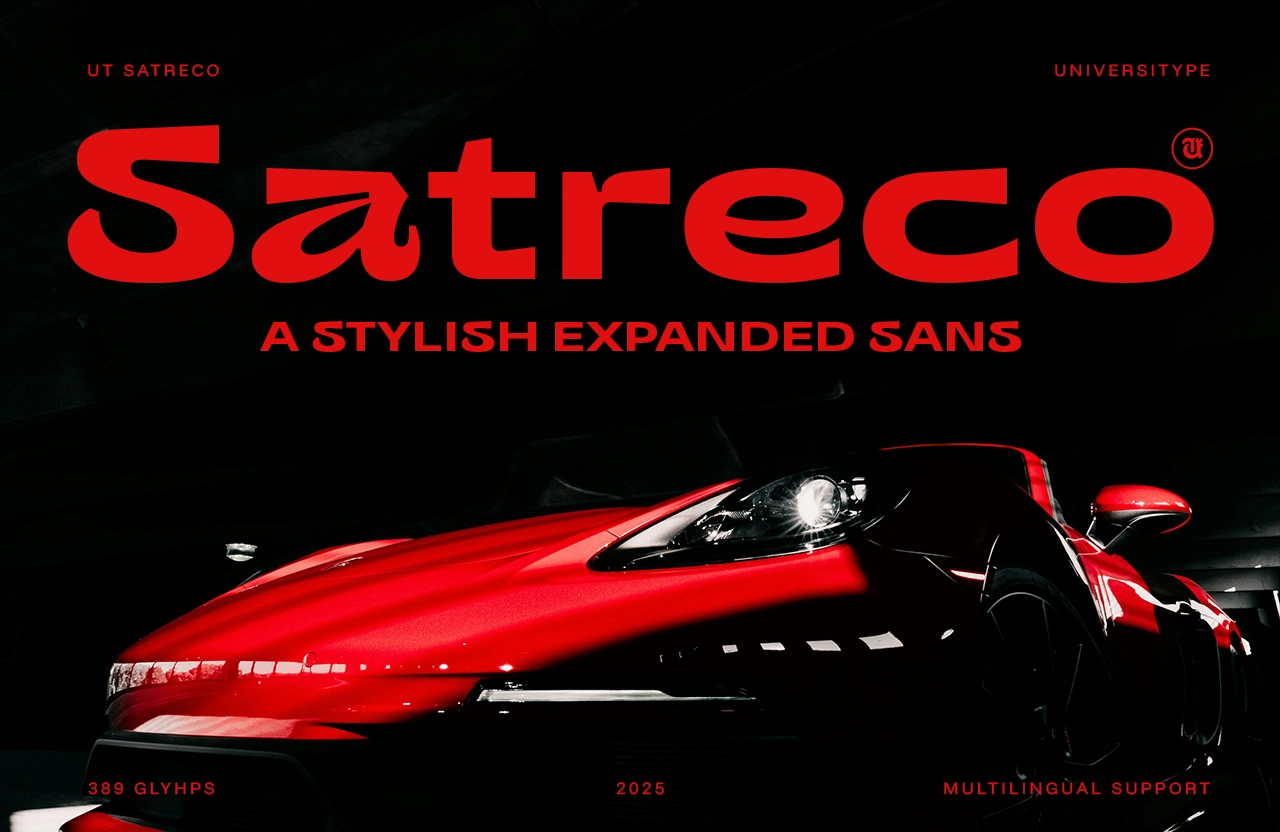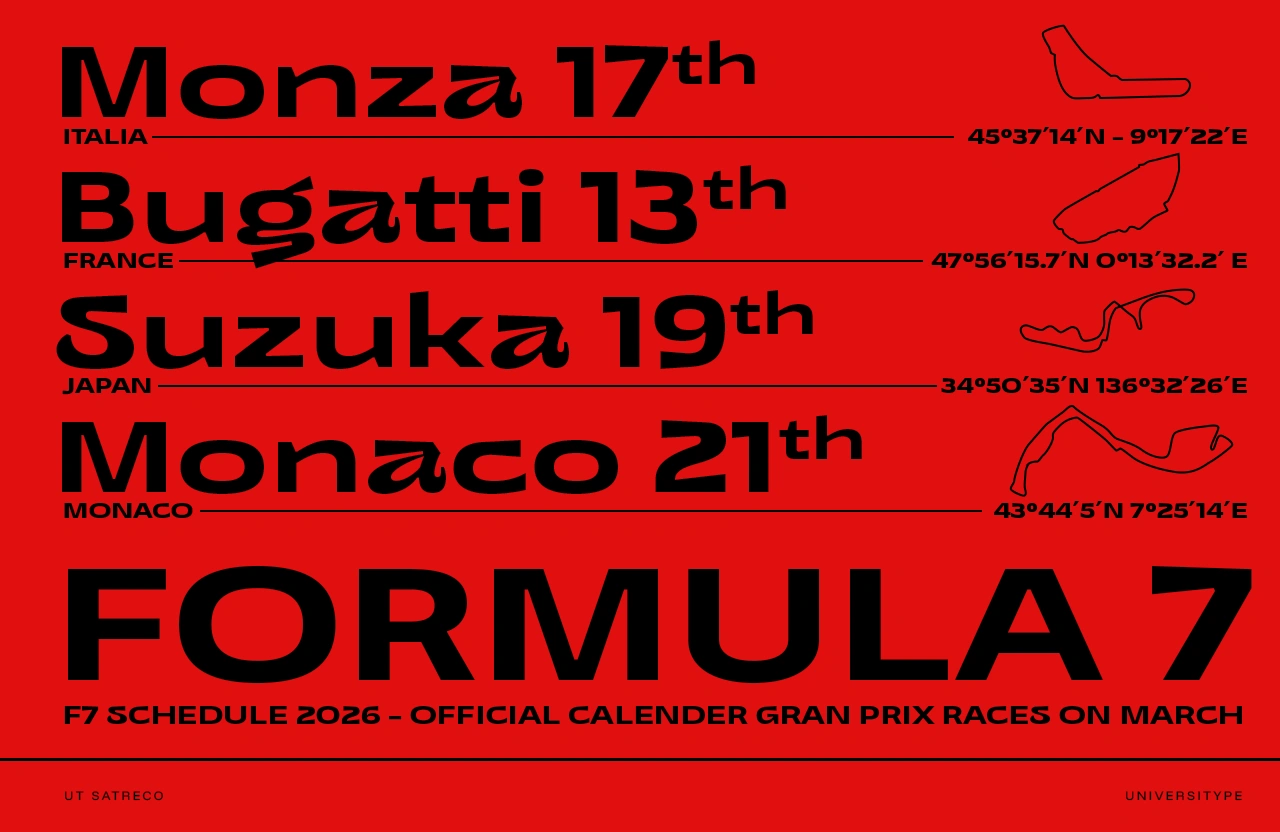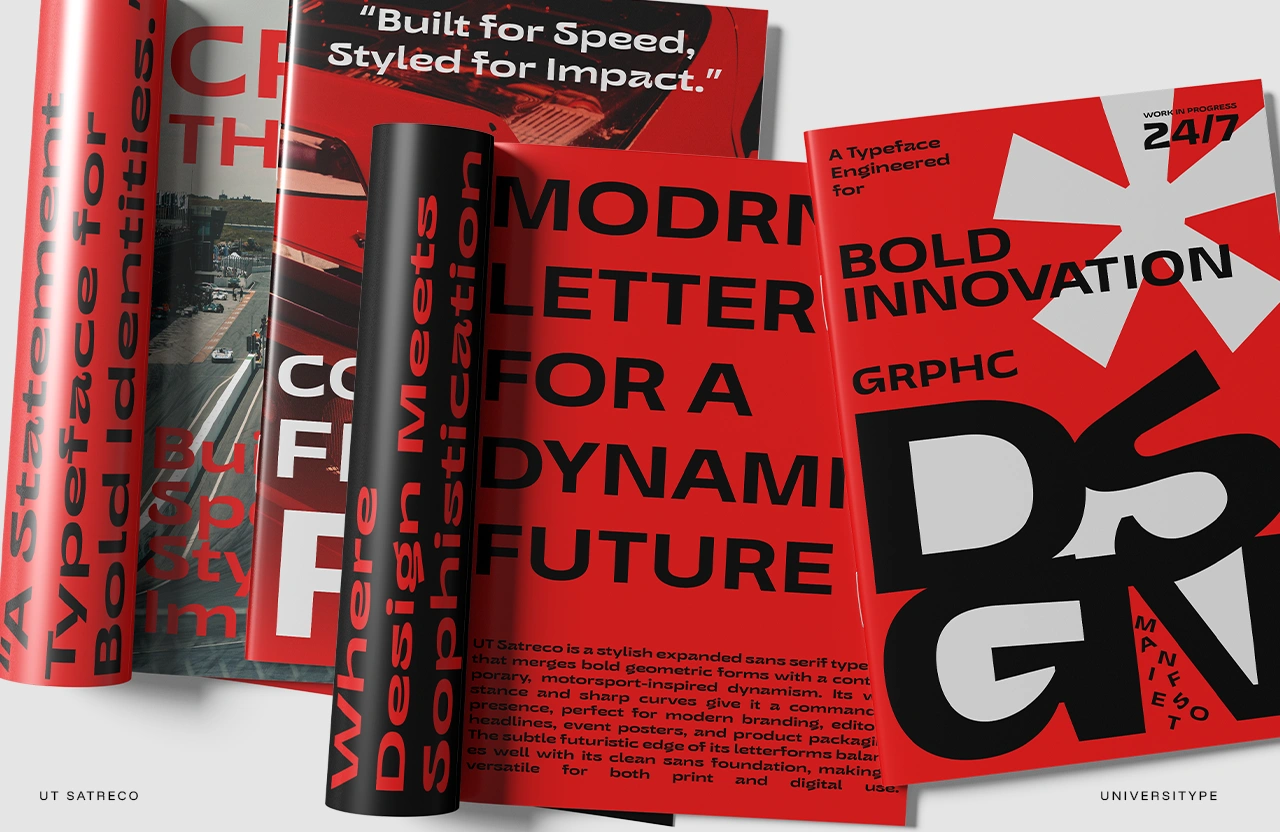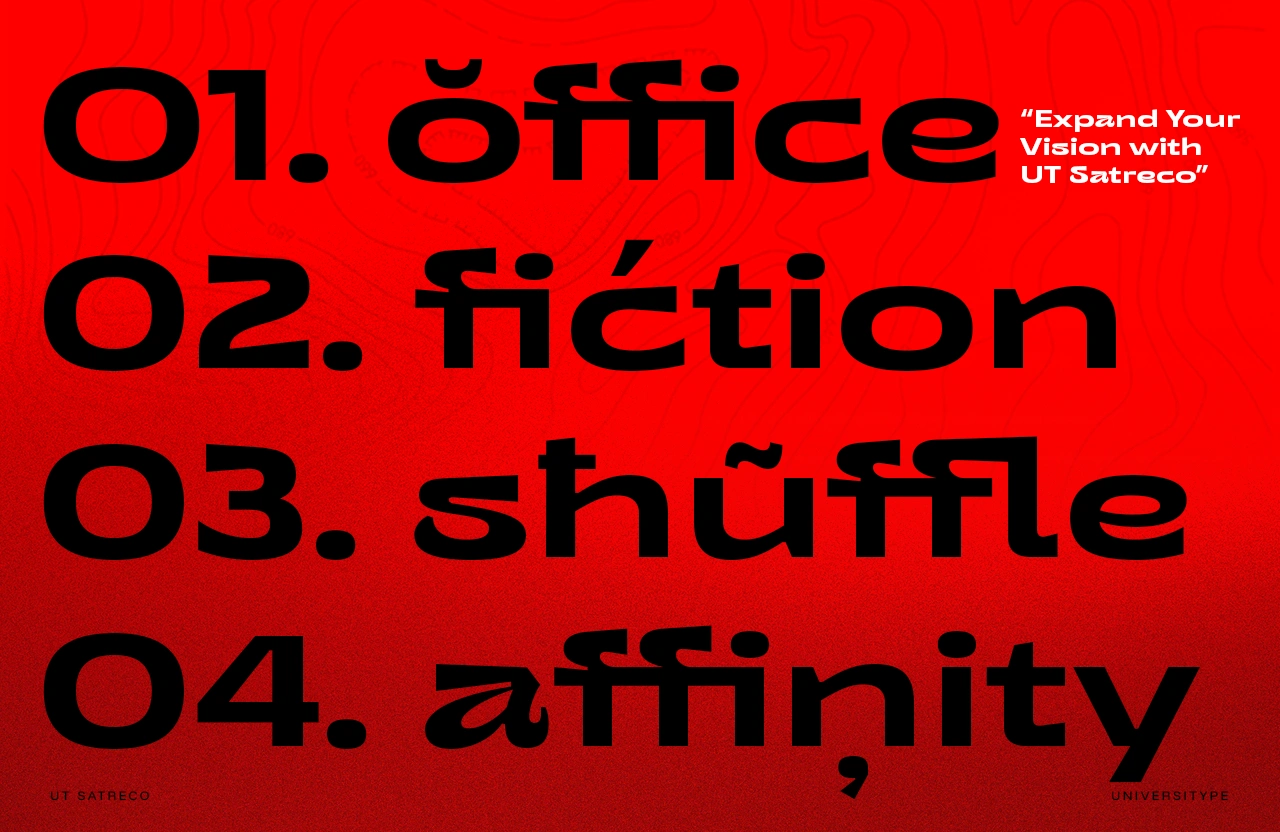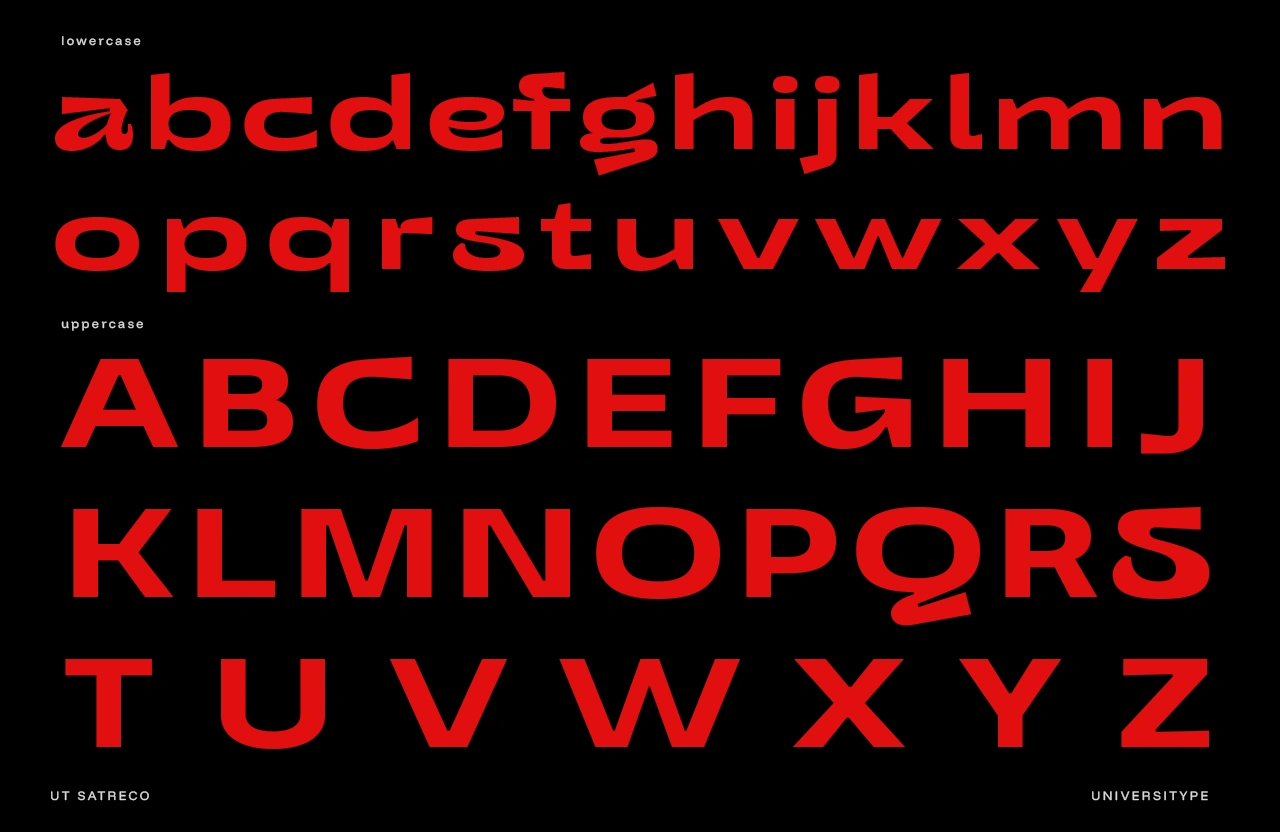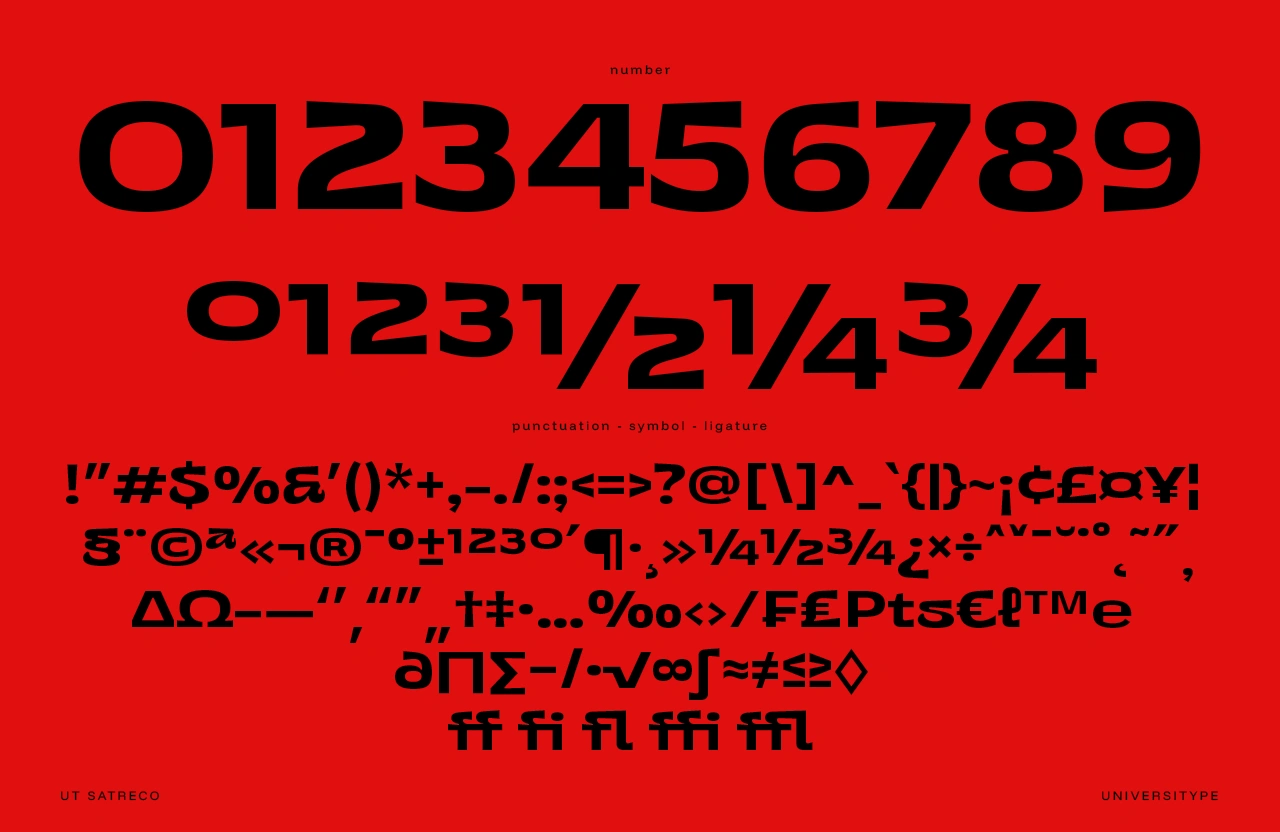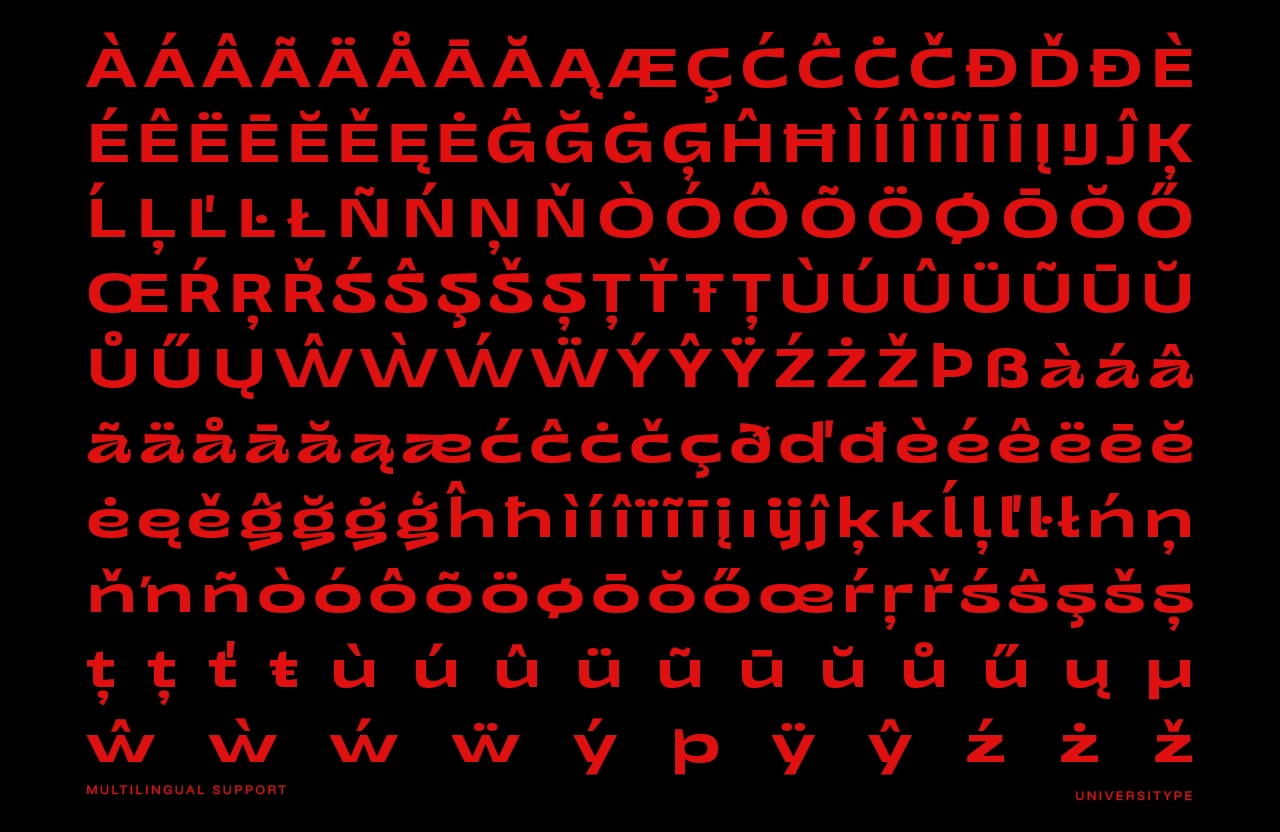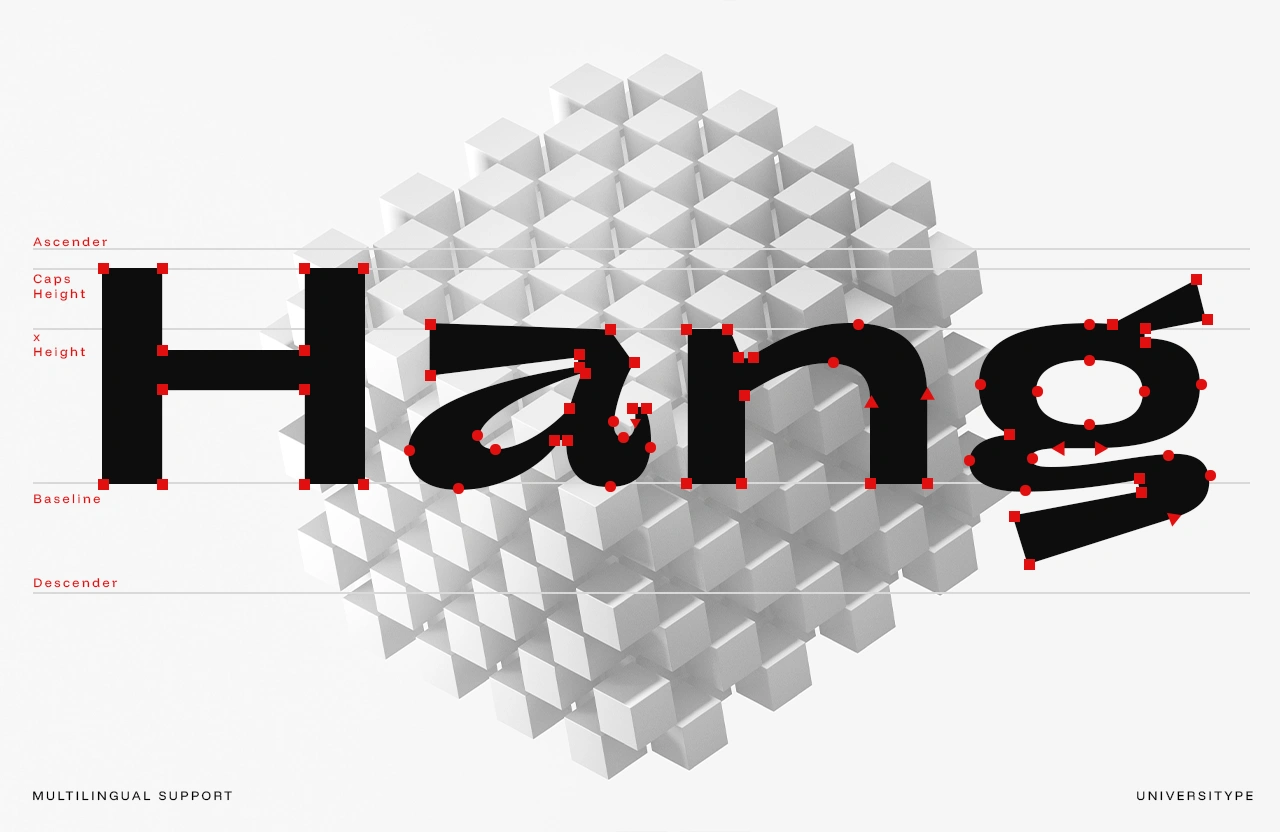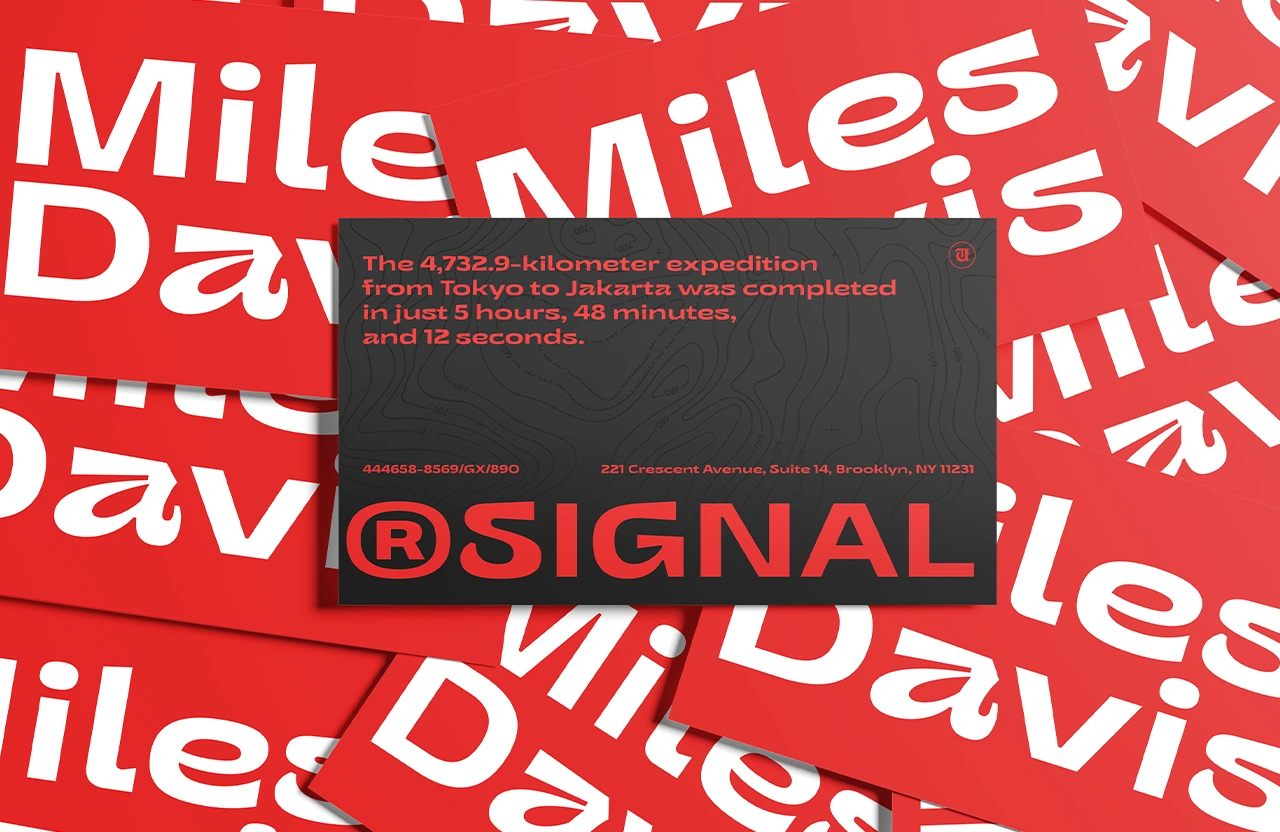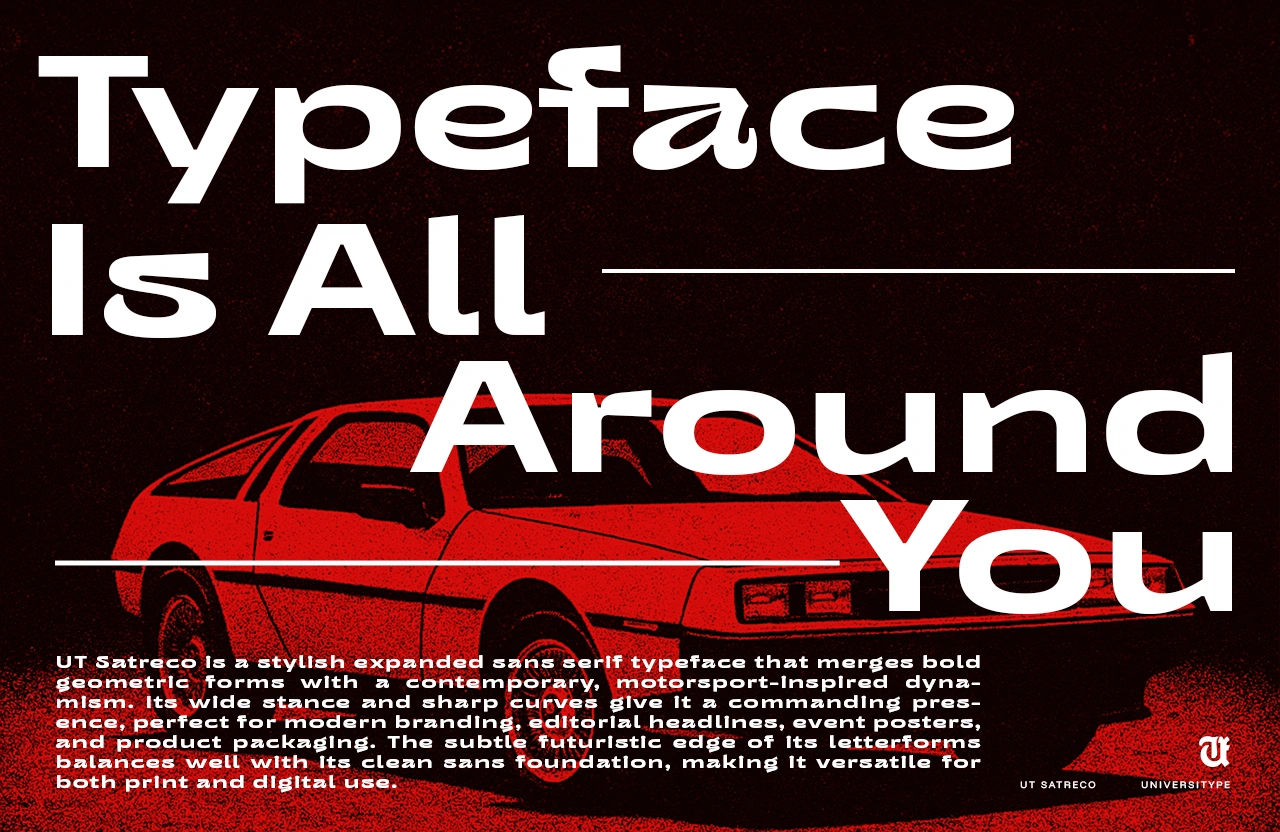
UT Satreco
UT Satreco is more than just a font—it’s a statement piece. Bold, wide, and unapologetically modern, this expanded sans brings a powerful presence to any design. Its sharp curves and geometric structure echo speed, confidence, and futuristic flair, making it the kind of typeface that refuses to blend into the background. Whether it’s a headline, a poster, or a brand identity, UT Satreco grabs attention and holds it.
UT Satreco – A Stylish Expanded Sans
UT Satreco is more than just a font—it’s a statement piece. Bold, wide, and unapologetically modern, this expanded sans brings a powerful presence to any design. Its sharp curves and geometric structure echo speed, confidence, and futuristic flair, making it the kind of typeface that refuses to blend into the background. Whether it’s a headline, a poster, or a brand identity, UT Satreco grabs attention and holds it.
UT Satreco is built for designers, brands, and creatives who want their visuals to feel bold and dynamic. Perfect for:
• Motorsport and automotive brands looking for speed-driven aesthetics.
• Tech startups craving a futuristic yet professional vibe.
• Lifestyle and fashion labels seeking sleek, confident branding.
• Graphic designers who love typefaces with personality and edge.
Key Features
• Expanded Sans Style: Wide letterforms that deliver presence and impact.
• Geometric Precision: Clean shapes with subtle futuristic detailing.
• Sharp Yet Stylish Curves: Balances boldness with sophistication.
• Versatile Personality: Equally at home in branding, packaging, editorial, or digital interfaces.
• Multilingual Support: Covers a wide range of international languages.
• Rich Glyph Set: 389 glyphs for creative flexibility.
Inspiration Behind the Design
The spark for UT Satreco came from the sleek world of motorsport—where speed, innovation, and bold design rule. Its wide stance mirrors the aerodynamic power of racing machines, while its sharp cuts and fluid curves capture the adrenaline of the track. It’s a font that feels fast even when standing still.
• Perfect for branding and logos that need authority and style.
• Makes editorial headlines stand out with commanding energy.
• Adds futuristic flair to event posters, campaigns, and product packaging.
• Ideal for sportswear, automotive, and tech-related projects.
• Elevates digital interfaces with bold, modern readability.
• Uppercase & lowercase
• Numbers & punctuation
• Multilingual support
• Stylistic alternates
• Extended character set for versatility